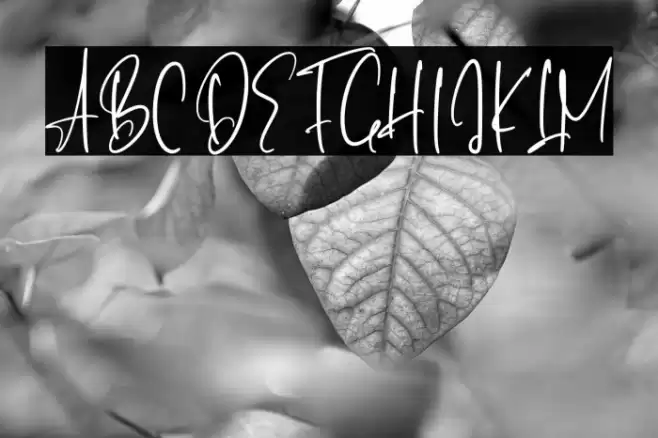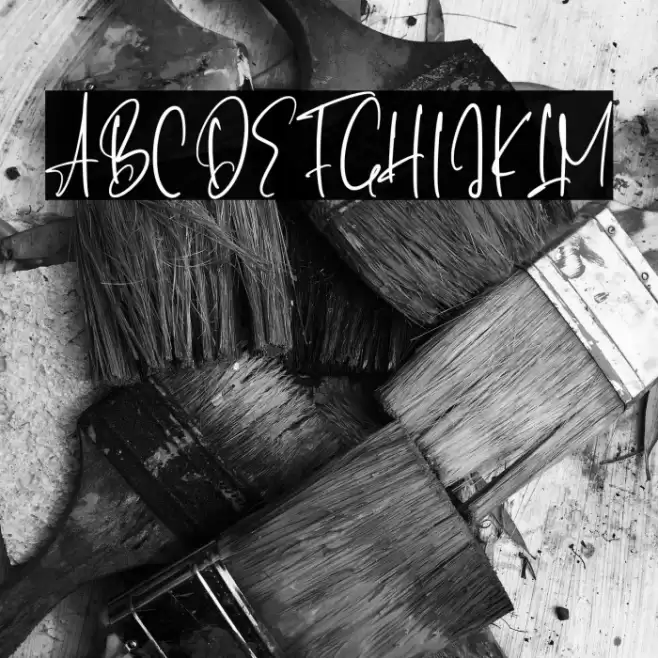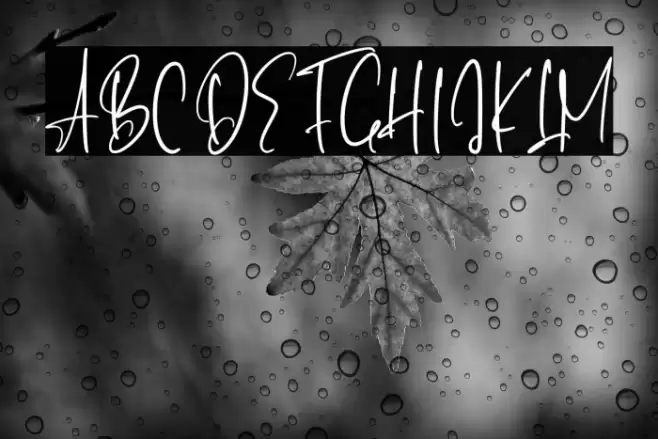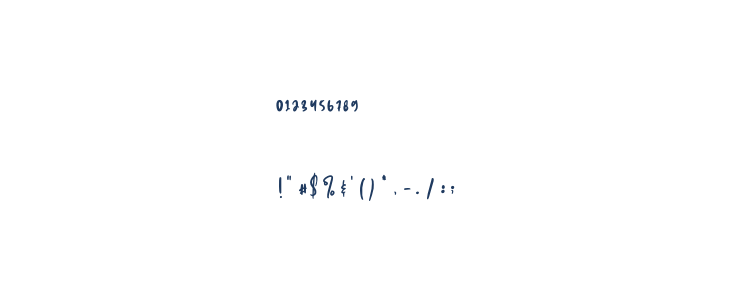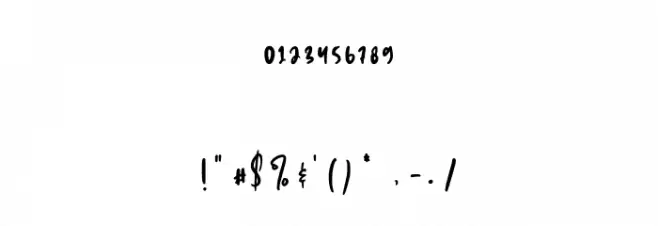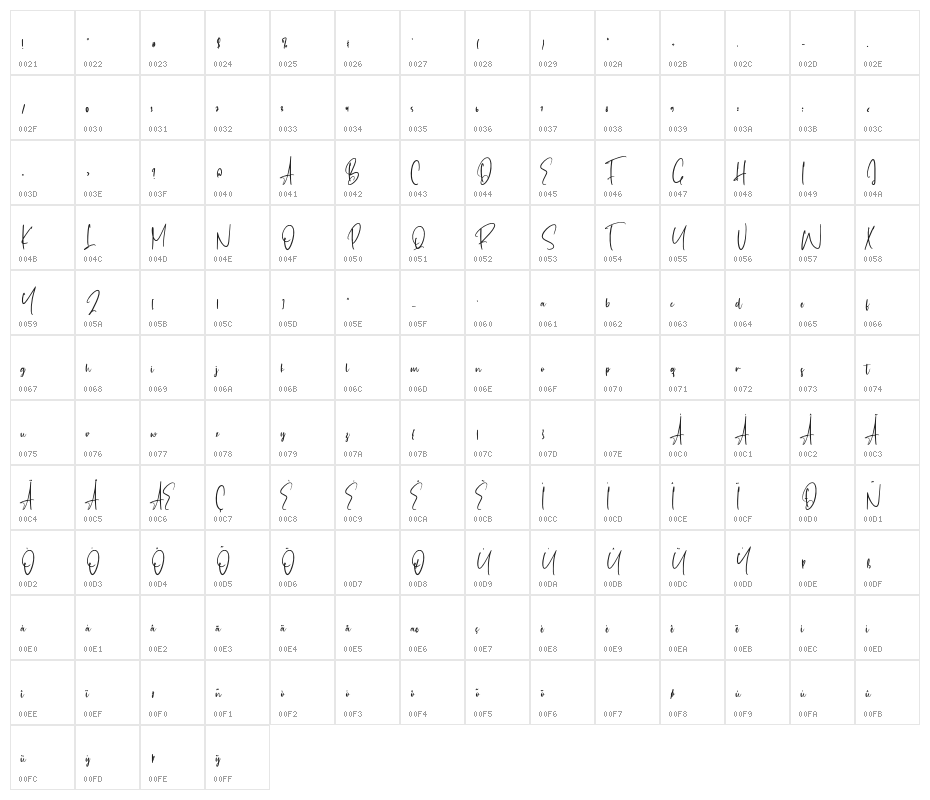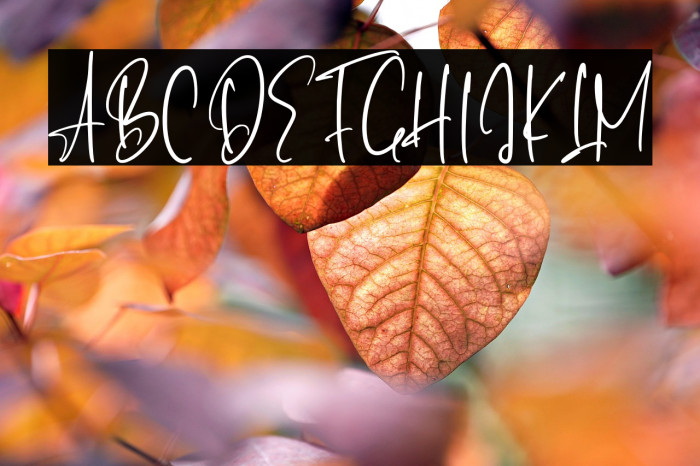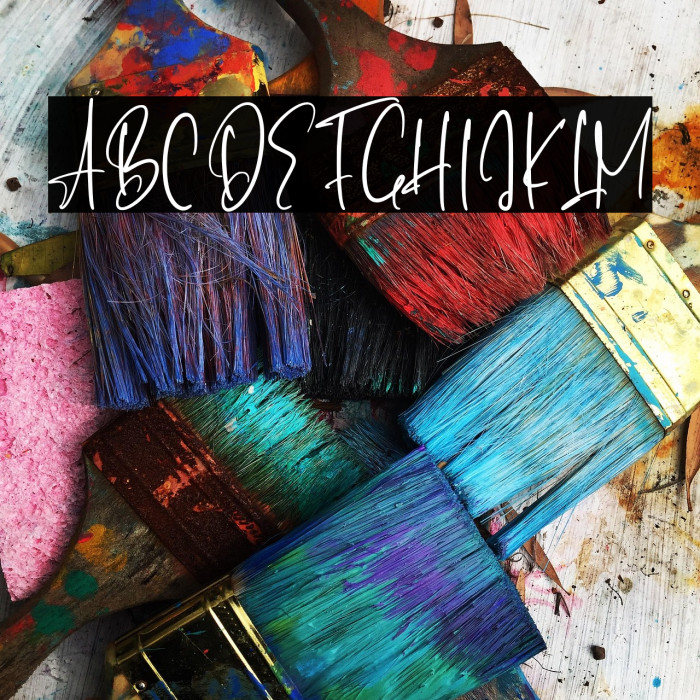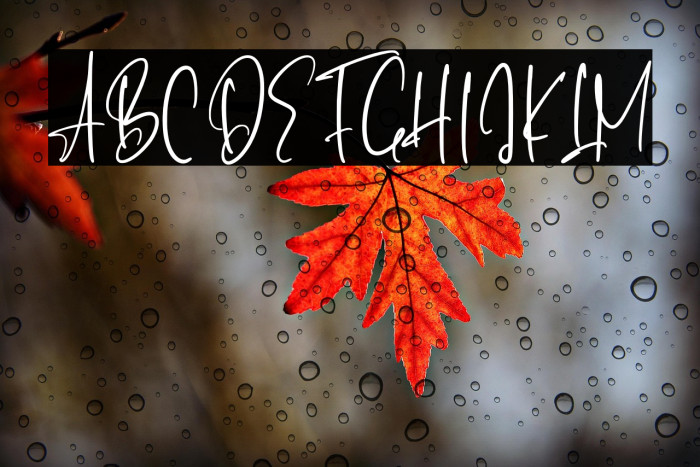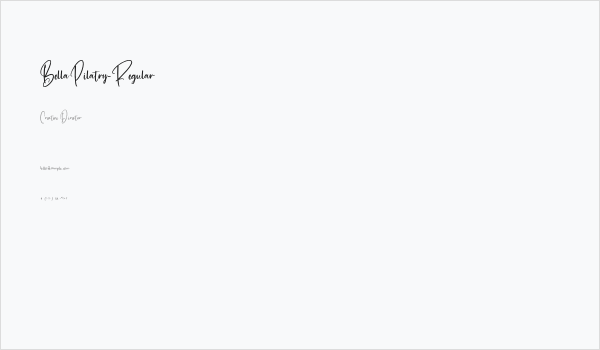
BellaPilatry-Regular Font
BellaPilatry-Regular Description
This font features a playful and whimsical handwritten style, characterized by its fluid and flowing letterforms. The uppercase letters exhibit a tall and narrow structure with varying stroke widths, giving them a dynamic and lively appearance. The lowercase letters maintain a consistent style, with smooth curves and a slightly slanted orientation, enhancing the casual and informal feel. The numerals and special characters are designed to match the overall aesthetic, ensuring a cohesive look across all text. The font's unique personality makes it stand out, offering a creative touch to any design project.
A playful, whimsical handwritten font with fluid, flowing letterforms from Uncategorized fonts.
- Proposed Projects: Ideal for greeting cards, invitations, personal branding, and creative projects that require a touch of personality.
- Use Case: Logos, Headlines, Creative projects